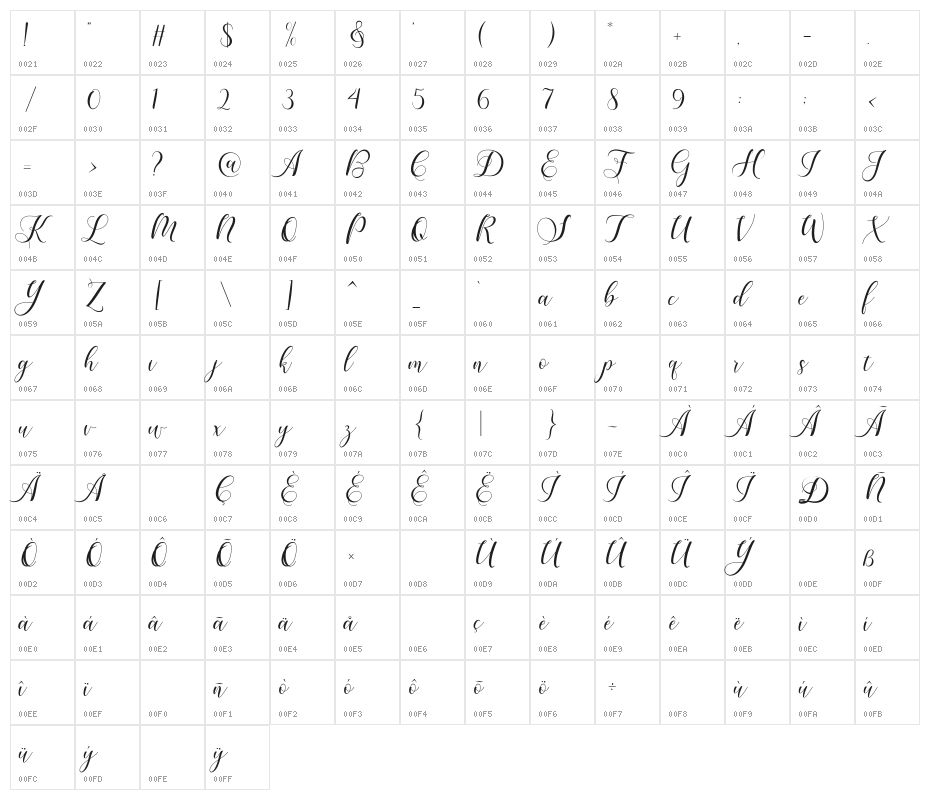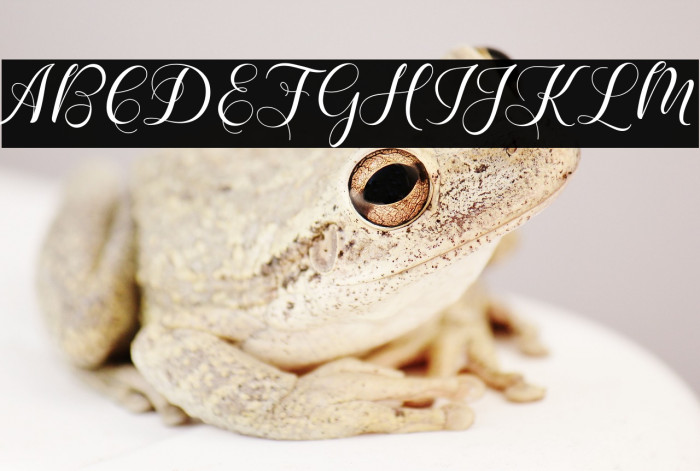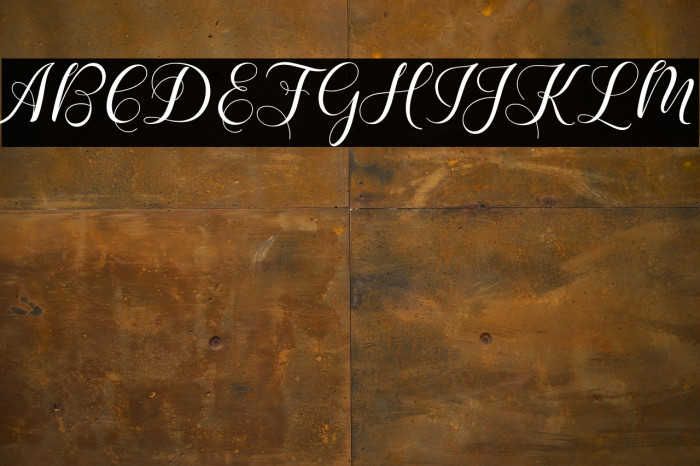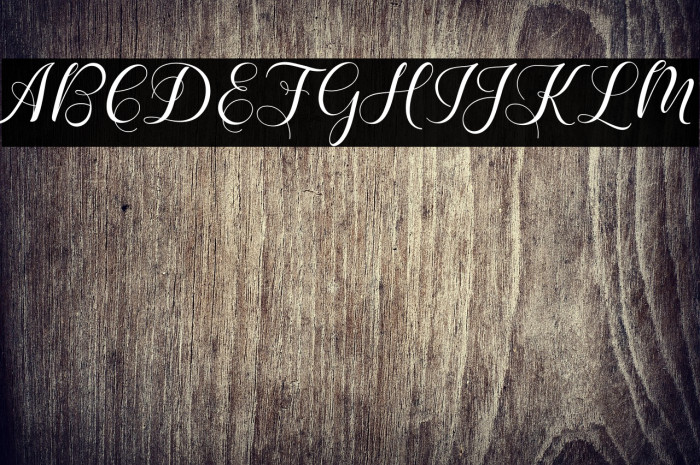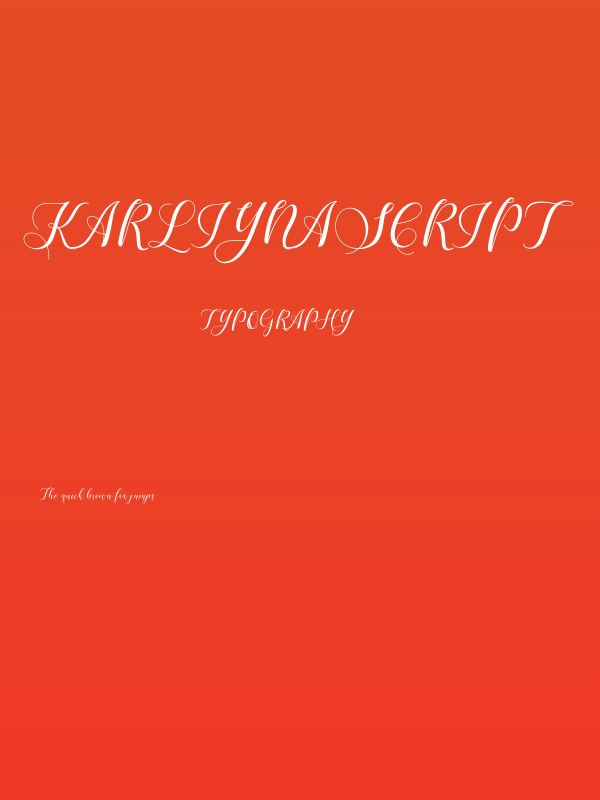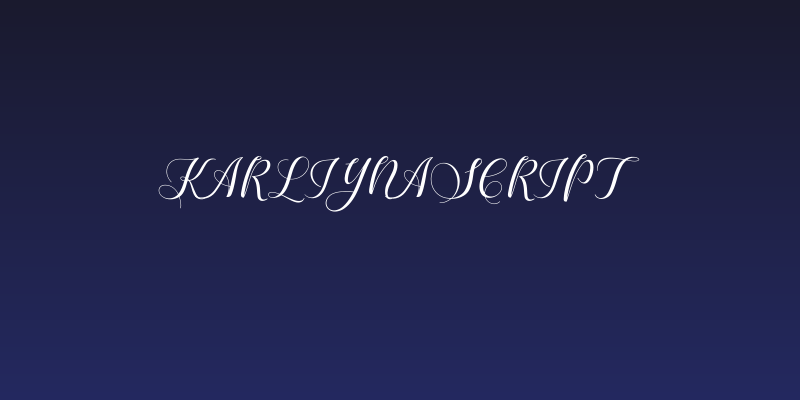
KarliynaScript Font
KarliynaScript Description
This elegant script font features flowing, cursive letters with a refined and sophisticated appearance. The characters are interconnected with graceful loops and swirls, creating a sense of fluidity and movement. The uppercase letters are particularly ornate, with extended flourishes that add a touch of drama. The lowercase letters maintain a consistent style, with smooth curves and delicate strokes. The numerals are designed to match the overall aesthetic, with similar curves and a slightly playful feel. Special characters are included, each crafted with the same attention to detail and elegance. This font is perfect for projects that require a touch of class and sophistication.
| Overall Style | Elegant, Sophisticated |
| Proposed Projects | Ideal for wedding invitations, elegant branding, luxury product packaging, and sophisticated event signage. |